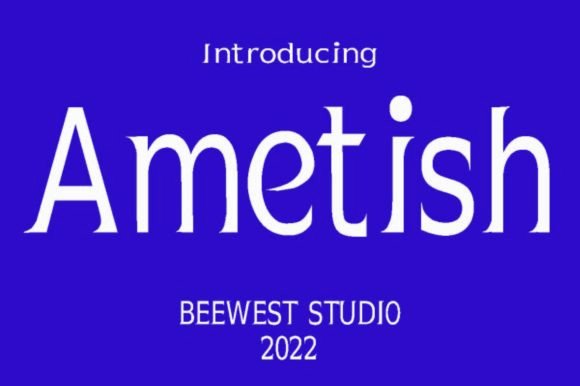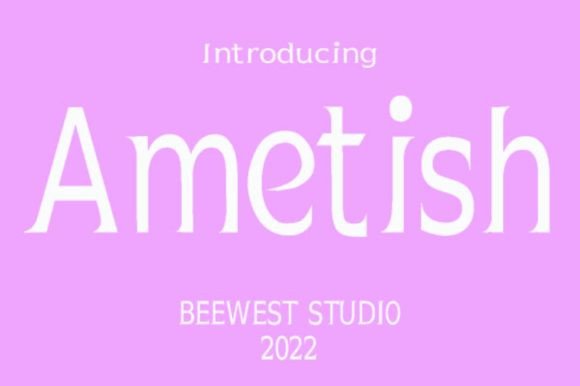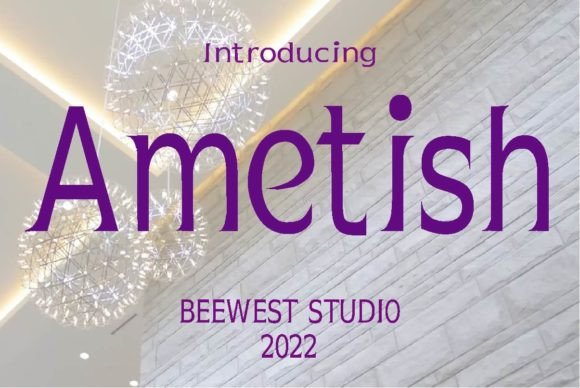
Ametish Font: Elevate Your Designs with Classic Elegance
Are you on the hunt for a font that exudes sophistication, elegance, and great taste? Look no further than the Ametish font. This stunning typeface is perfect for designers and crafters seeking to add a touch of luxury to their projects. In this article, we’ll dive into the world of Ametish font, exploring its features, uses, and benefits.
What is Ametish Font?
Ametish font is a classic and elegant typeface that boasts a timeless appeal. Its refined lines, subtle curves, and balanced proportions make it an excellent choice for a wide range of design applications. Whether you’re working on a perfume advertisement, fashion magazine, or quote design, Ametish font is sure to impress.
Key Features of Ametish Font
- Classic and Elegant: Ametish font’s sophisticated design makes it perfect for projects that require a touch of luxury and refinement.
- Versatile: This font is suitable for various design applications, including perfume, fashion, magazine, and quote designs.
- Great Taste: Ametish font’s unique blend of classic and modern elements gives it a distinctive look that’s sure to turn heads.
Uses of Ametish Font
Ametish font’s versatility makes it an excellent choice for various design projects. Here are some of the most popular uses of this stunning typeface:
- Perfume and Beauty Designs: Ametish font’s elegant design makes it perfect for perfume advertisements, packaging, and beauty-related projects.
- Fashion Magazine: This font’s classic appeal makes it an excellent choice for fashion magazines, editorials, and blog posts.
- Quote Designs: Ametish font’s refined lines and subtle curves make it ideal for quote designs, posters, and inspirational graphics.
- Wedding and Event Designs: This font’s sophisticated design makes it suitable for wedding invitations, event branding, and other formal events.
Benefits of Using Ametish Font
Using Ametish font in your designs comes with several benefits, including:
- Instant Sophistication: Ametish font’s classic design instantly adds a touch of sophistication and elegance to your projects.
- Improved Readability: This font’s clear and balanced design ensures excellent readability, making it perfect for body text and headlines.
- Unique Look: Ametish font’s distinctive design sets it apart from other typefaces, giving your projects a unique and memorable look.
Tips for Using Ametish Font
To get the most out of Ametish font, here are some valuable tips to keep in mind:
- Pair with Neutral Colors: Ametish font looks stunning when paired with neutral colors like black, white, and gray.
- Experiment with Font Sizes: This font’s versatility allows it to shine at various font sizes, from large headlines to smaller body text.
- Add a Personal Touch: Use Ametish font as a starting point and add your personal touch with custom graphics, illustrations, or textures.
In conclusion, Ametish font is a classic and elegant typeface that’s perfect for designers and crafters seeking to add a touch of luxury to their projects. Its versatility, readability, and unique look make it an excellent choice for various design applications. By incorporating Ametish font into your designs, you’ll instantly elevate your work and make it more memorable.